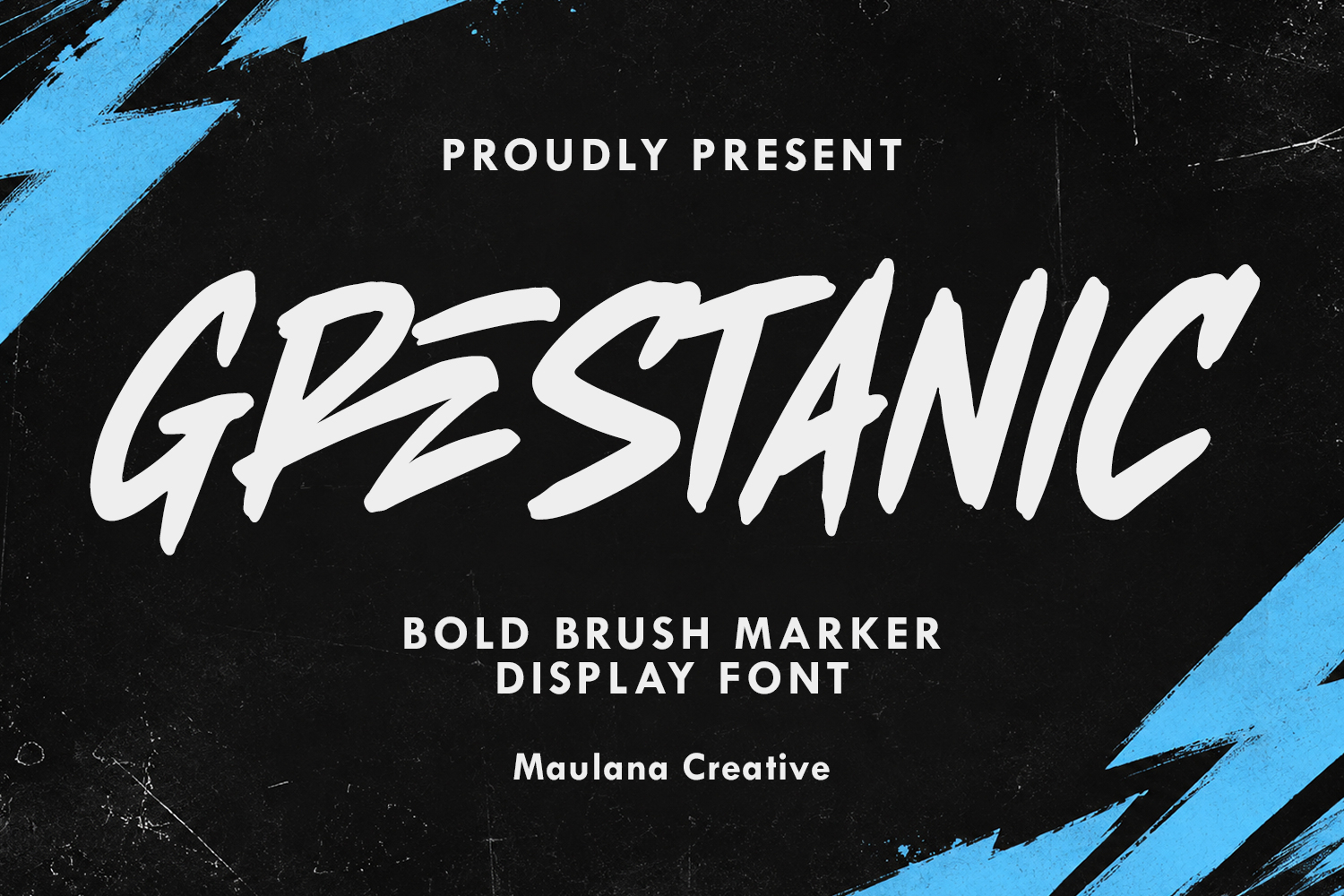
Grestanic Bold Brush Marker Display Font
Grestanic is a dynamic, high-energy display font designed to bring raw intensity and expressive texture to modern visual projects. Featuring bold stroke contrast and authentic marker details, this typeface delivers an edgy aesthetic that immediately catches the viewer's eye. It works exceptionally well for bold headlines, striking posters, album covers, and energetic branding concepts.
Engineered with full uppercase character sets, numbers, symbols, and multilingual support, Grestanic ensures complete versatility across diverse layouts. The hand-drawn marker feel provides a realistic, handcrafted look while maintaining clarity and readability. Whether creating urban graphics, action sports promotions, or expressive cover art, this font offers the ideal balance of power and artistic style.